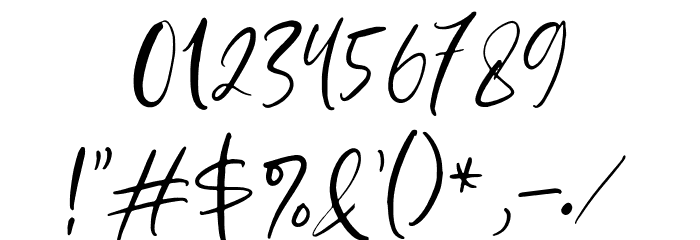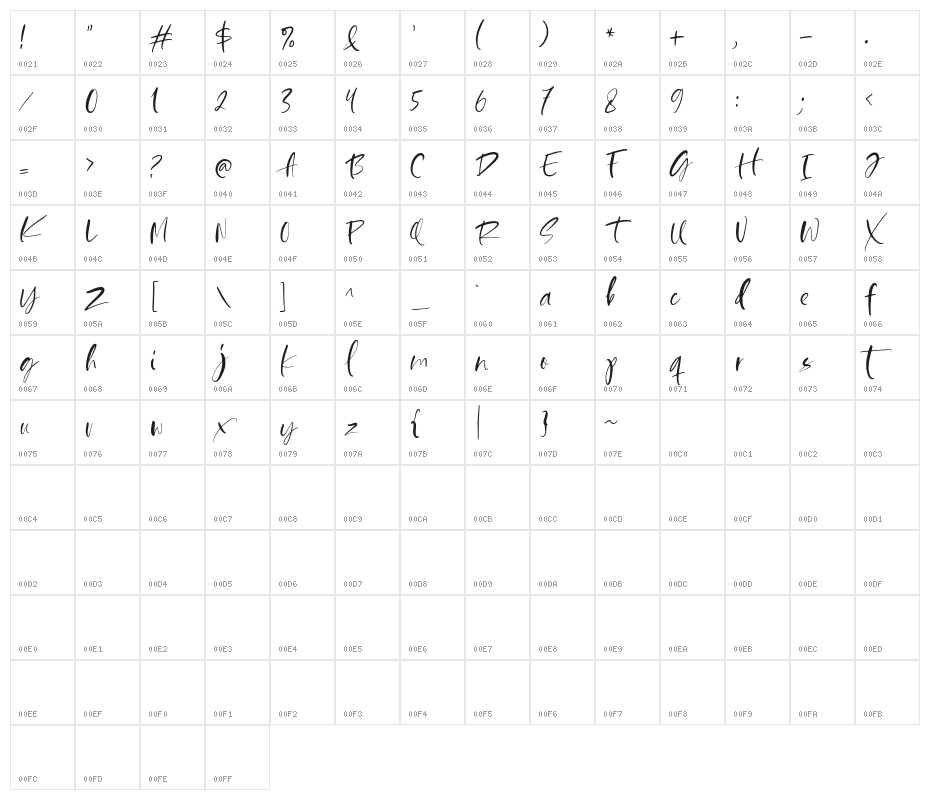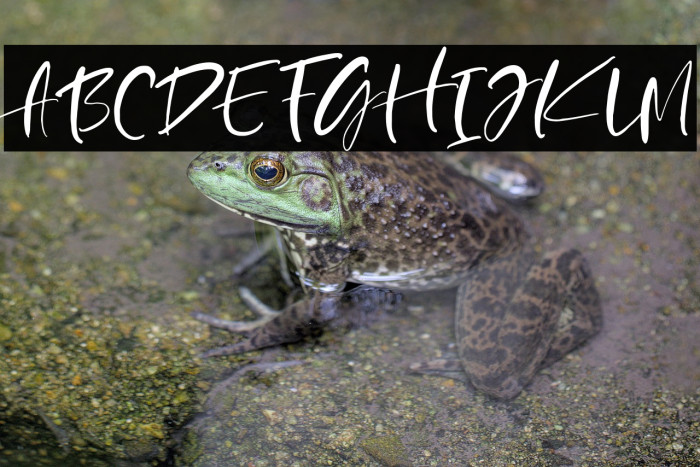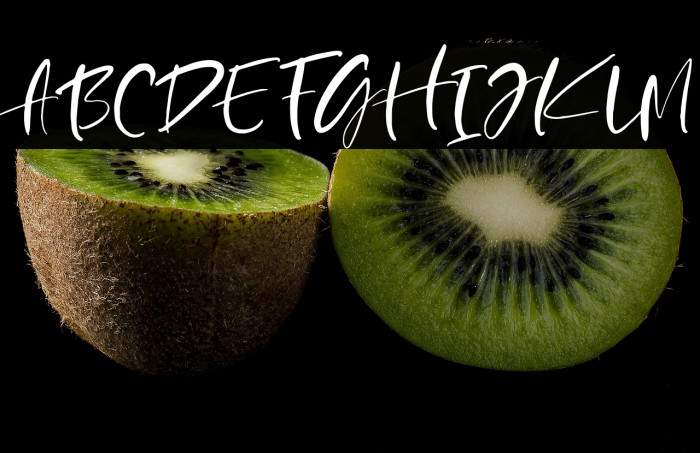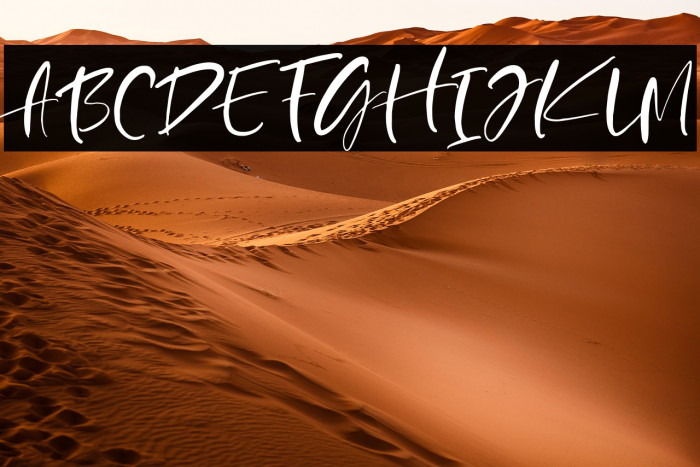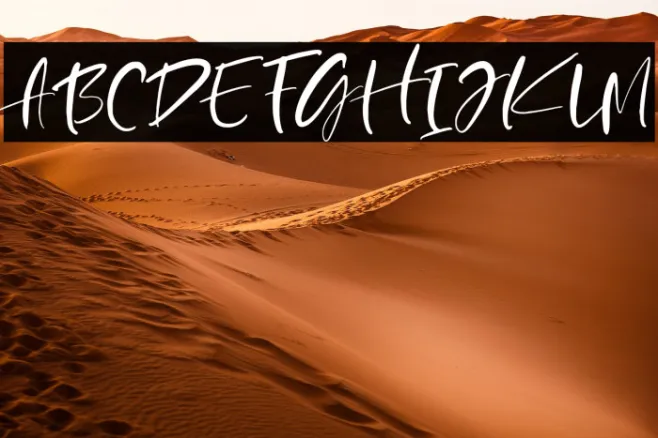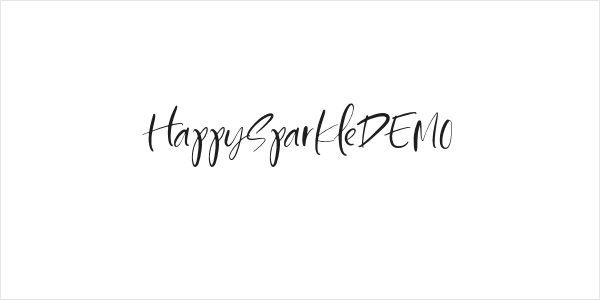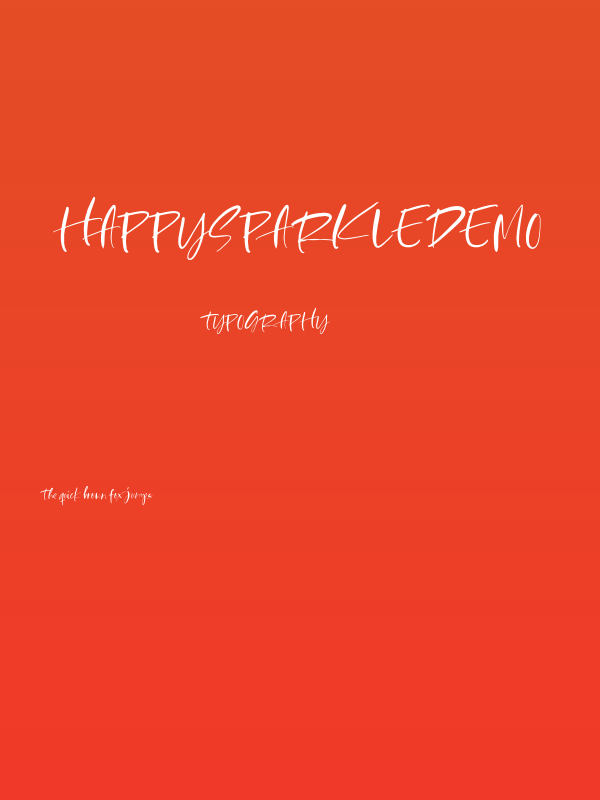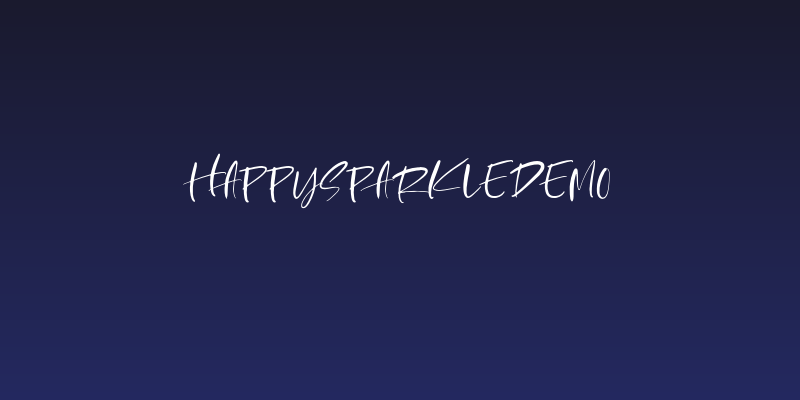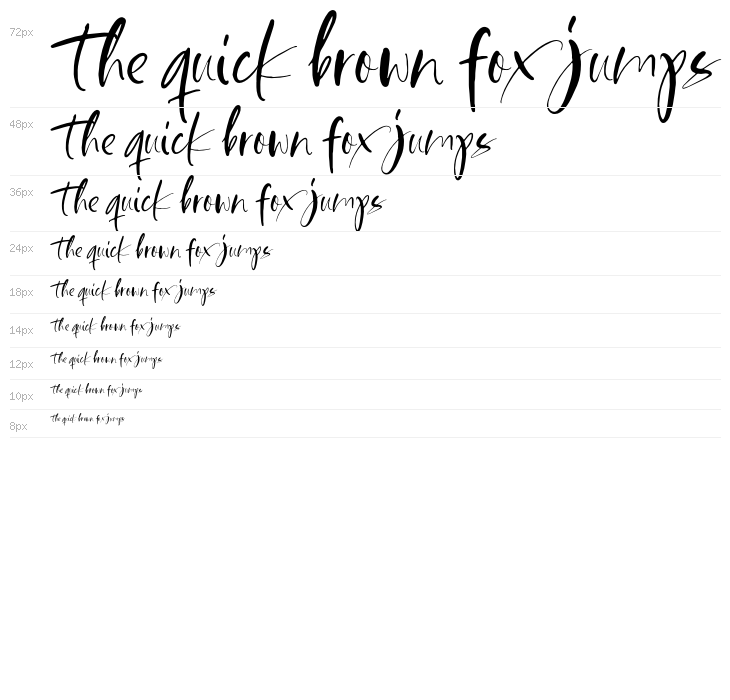
HappySparkleDEMO Font
HappySparkleDEMO Description
This font exudes a lively and energetic vibe with its handwritten style, characterized by fluid, sweeping strokes and a playful, casual appearance. The letters are slightly slanted, giving a sense of movement and dynamism. The uppercase and lowercase letters maintain a consistent flow, while the numbers and special characters integrate seamlessly into the overall design. The strokes vary in thickness, adding a touch of elegance and sophistication. This font is perfect for projects that require a personal, human touch, such as invitations, greeting cards, or branding materials that aim to convey warmth and approachability.
| Proposed Projects | Ideal for invitations, greeting cards, branding materials, and any project needing a personal touch. |